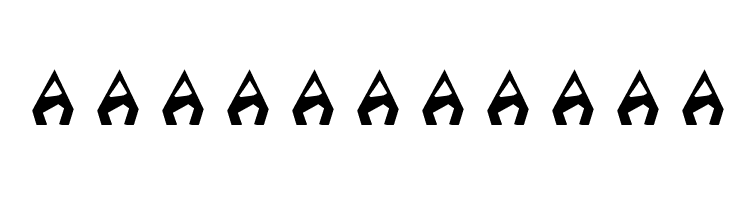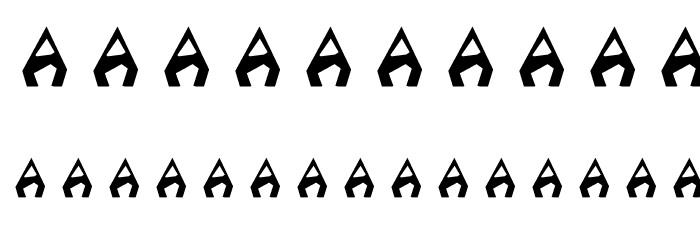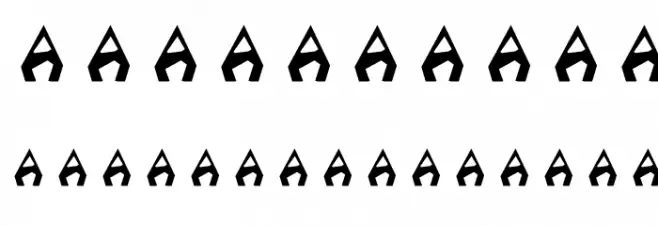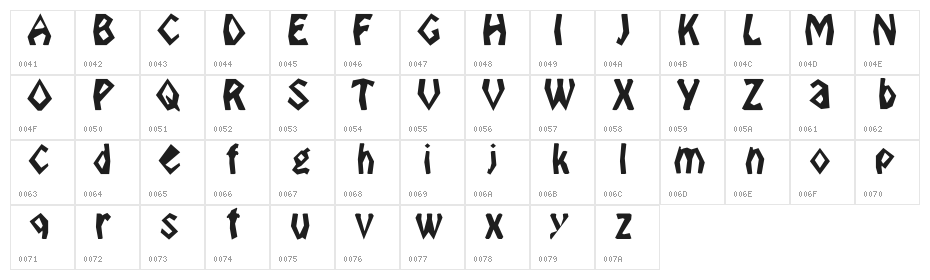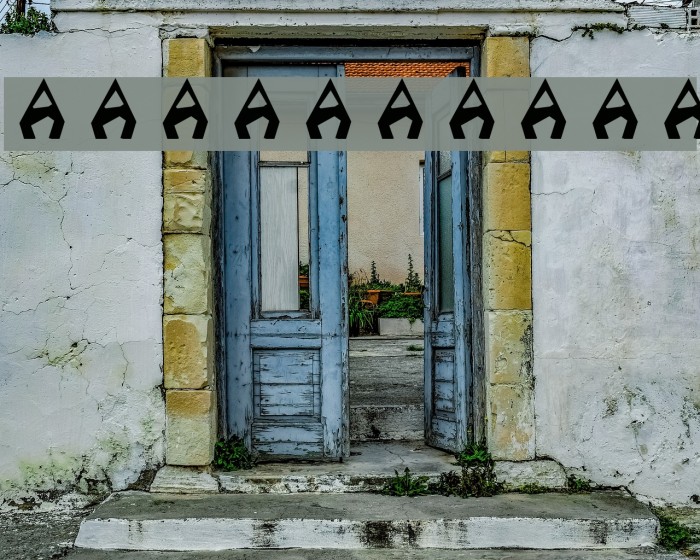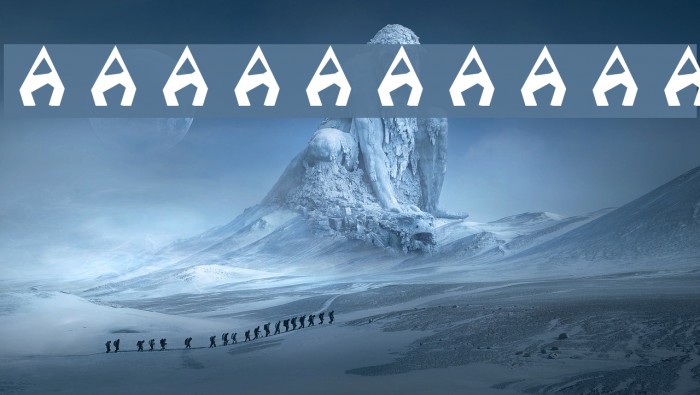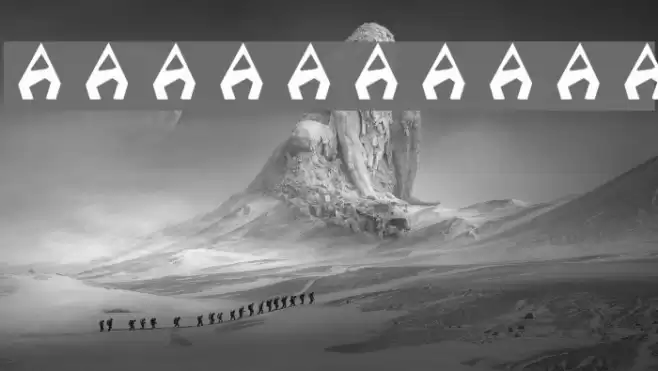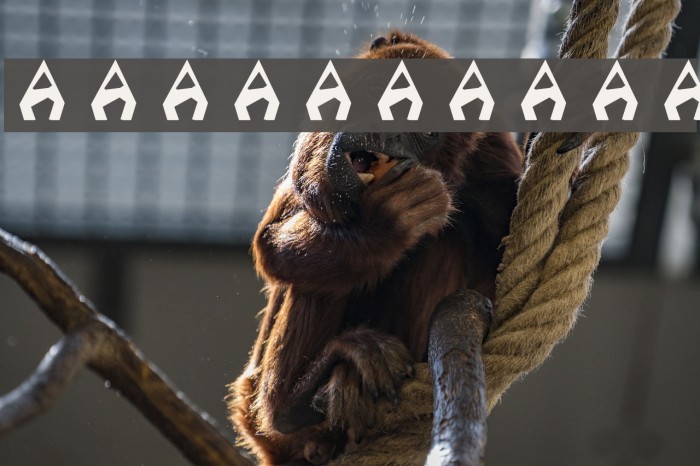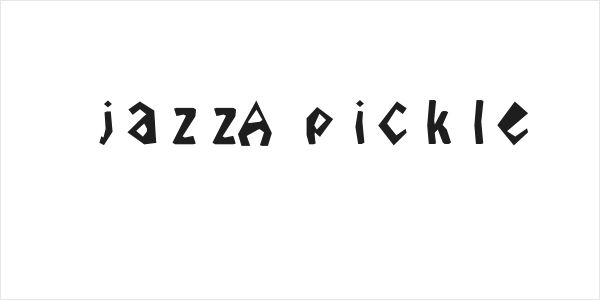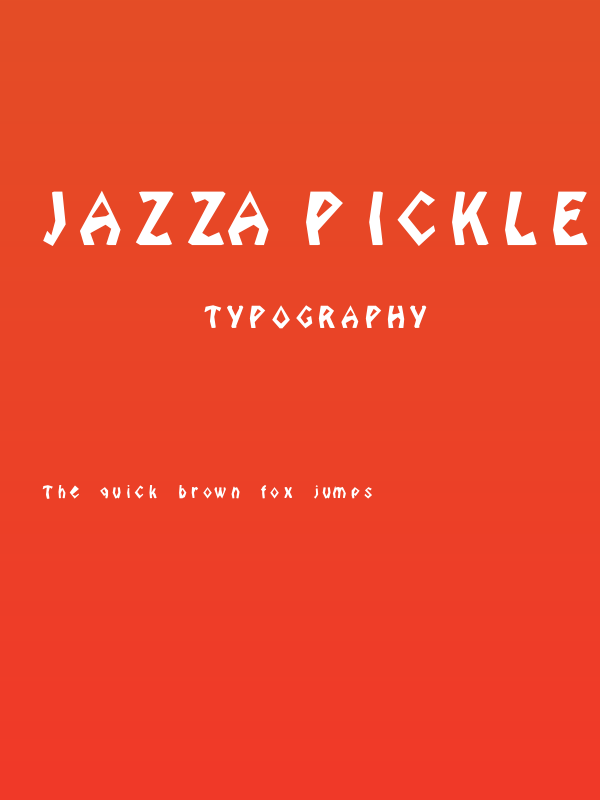
jazz-pickle Font
jazz-pickle Description
This font features a bold, geometric style with a distinct angular design. Each character is crafted with sharp edges and a strong presence, making it highly suitable for attention-grabbing headlines and titles. The uniformity in the structure of the letters gives it a cohesive and modern look. The font's boldness is emphasized by its thick strokes, which contribute to its striking appearance. Its unique style is both contemporary and versatile, allowing it to be used in various design contexts where a bold statement is needed.
| Proposed Projects | Ideal for branding, posters, headlines, and any design requiring a strong visual impact. |